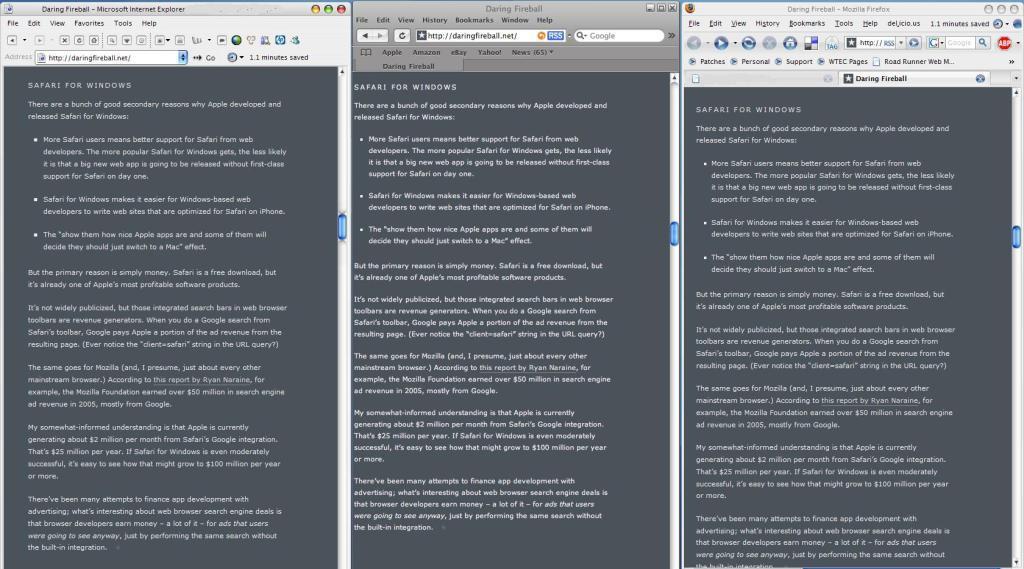
I compared Firefox, Safari, and IE, and I have to say, the fonts looked better in IE or FF way more than Safari.
Anyone else really bothered by this?
Seems like Safari is alpha more than beta.
i vaguely remember someone else mentioning that in a blog I read, but the font is rendered differently, and I don't think it's because safari is alpha or beta or whatever.
Apple packed its own font hinting and all the stuff in there, because apple think windows users will like it.
The blog article on it was an interesting read. I read another article discussing the different philosophies that Apple and Microsoft have taken when it comes to font smoothing.
The advantage of Microsoft's method is that it works better for on-screen reading.
The nice thing about the Apple algorithm is that you can lay out a page of text for print, and on screen, you get a nice approximation of the finished product.
I think it looks insanely ugly and illegible. I tried using Safari again now that 3.0.1 is out, but quickly quit. I just can't stand it, even aside from the fonts and how poorly it renders pages. The interface is horribly broken compared to Firefox or even Internet Explorer.